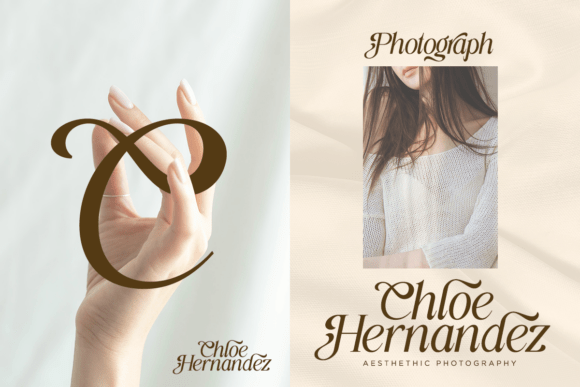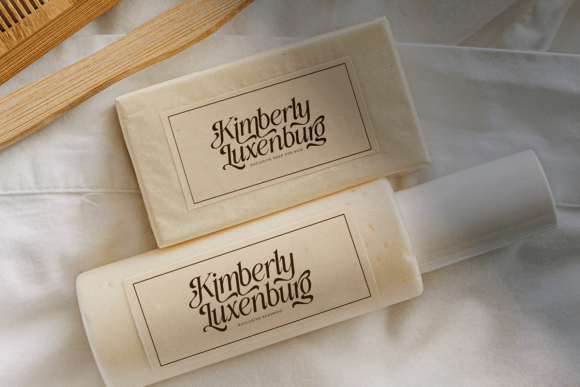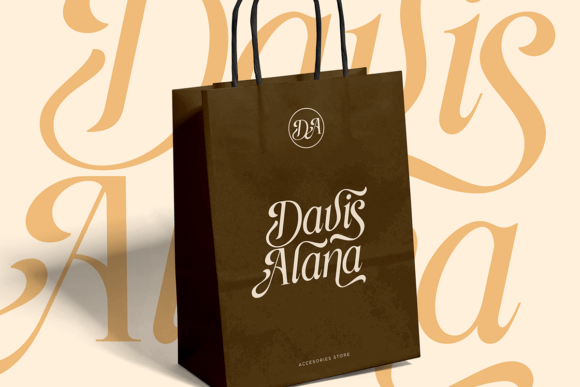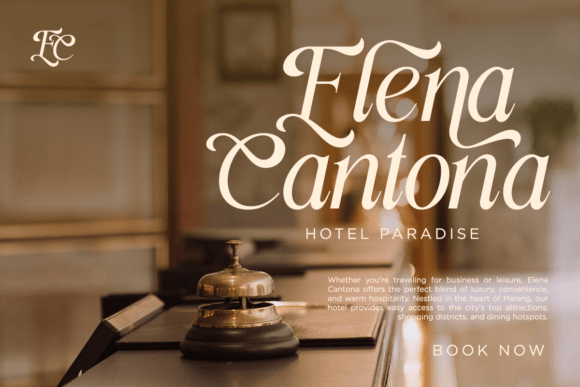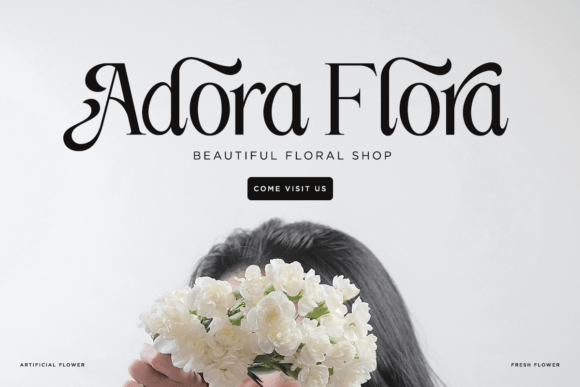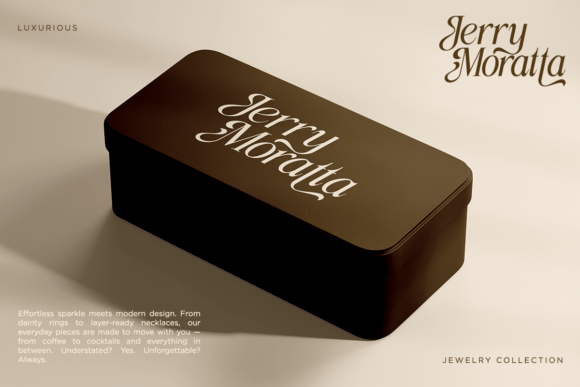
Introduction to Classy Exclusive Font
Have you ever stared at a blank page, trying to bring your creative vision to life, only to be halted by the perfect font to match your aesthetic? That’s where the Classy Exclusive Font comes in – a luxurious serif font that exudes elegance and sophistication, making it the ultimate design resource for any high-end project.
As a designer, you understand the importance of choosing a font that not only reflects your brand’s personality but also elevates the overall visual impact of your work. The Classy Exclusive Font, with its beautiful italic style and refined detailing, is the perfect choice for premium branding, fashion editorials, and luxury invitations. Whether you’re working on a creative project with a transparent background or need a high-quality font for your next design, this font is sure to impress.
Key Features of Classy Exclusive Font
- High-quality design resource ideal for creative projects, including invitations, posters, and social media graphics.
- Unique, elegant design elements and flourishes that set it apart from other fonts, perfect for adding a touch of sophistication to your creative project.
Honest Review: Classy Exclusive Font
I recently came across the Classy Exclusive Font and was excited to give it a try. As a designer, I’m always on the lookout for high-quality design resources to elevate my creative projects. In this review, I’ll share my honest thoughts on this font.
- High-quality design: The Classy Exclusive Font boasts a sleek and sophisticated design that’s perfect for formal or professional projects.
- Limited character set: The font only includes a limited character set, which may not be suitable for projects that require a wide range of characters.
- No bold or italic options: I would have liked to see bold and italic options available for added versatility.
Overall, I think the Classy Exclusive Font is a solid addition to any designer’s toolkit. While it has some limitations, its high-quality design and free download make it a great resource for creative projects.
The Classy Exclusive Font is a high-quality design resource perfect for creative projects. Its sleek and sophisticated design makes it ideal for professional use. This font is available for free download, making it accessible to designers of all levels.
Tips for Getting the Most Out of the Classy Exclusive Font
Use the Classy Exclusive Font on a transparent background to create a sleek and modern look. You can also use it to create headings and titles in your design project.
The Classy Exclusive Font is ideal for:
- Website headers and footers